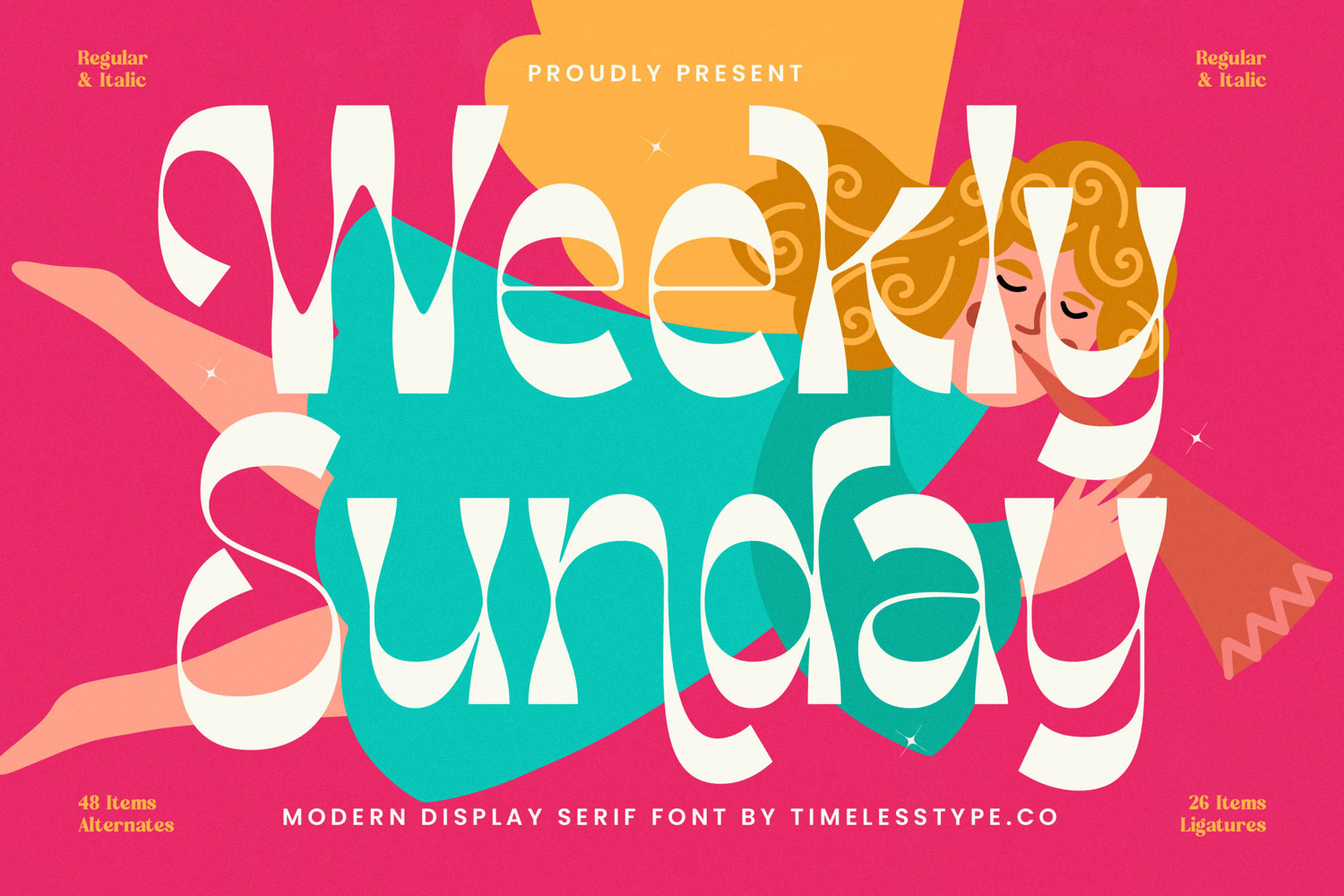
Weekly Sunday - Modern Display Serif Font
Elevate your designs with the undeniable charm of Font Weekly Sunday - Modern Display Serif Font Serif Display, a typeface crafted to command attention. This modern display serif boasts a captivating blend of classic elegance and playful contemporary flair, characterized by its high-contrast strokes and exquisitely fluid, organic curves. It’s the perfect choice for projects demanding a distinctive voice and a memorable visual identity that resonates with sophistication and creativity.
Unleash boundless creative potential with Font Weekly Sunday - Modern Display Serif Font Serif Display, offering remarkable design versatility across its regular and italic styles. Enhanced by a generous collection of 48 alternates and 26 ligatures, this font empowers designers to create truly unique compositions and personalized typographic expressions. These extensive features ensure your headlines, logos, and branding collateral possess an unparalleled level of bespoke craftsmanship.
Font Weekly Sunday - Modern Display Serif Font Serif Display is perfectly suited for applications where a strong, stylish presence is paramount. It shines brilliantly in luxury branding, high-end packaging, editorial design, fashion magazines, and sophisticated event invitations. Its expressive character makes it ideal for titles, headlines, and hero text that require a touch of personality while maintaining an air of premium quality and artistic sensibility.
With its extensive multilingual support, Font Weekly Sunday - Modern Display Serif Font Serif Display adapts seamlessly across global markets, making it incredibly versatile for international projects. This comprehensive language coverage, combined with its striking aesthetic, positions it as an indispensable premium design asset for global brands and creative agencies seeking a font that delivers both impactful style and practical functionality.